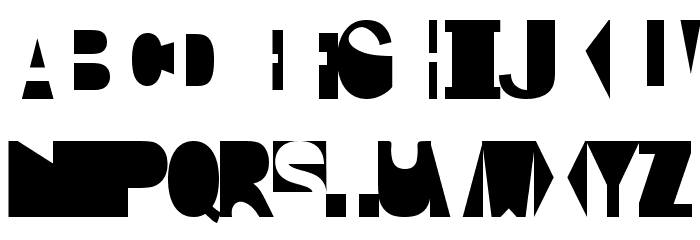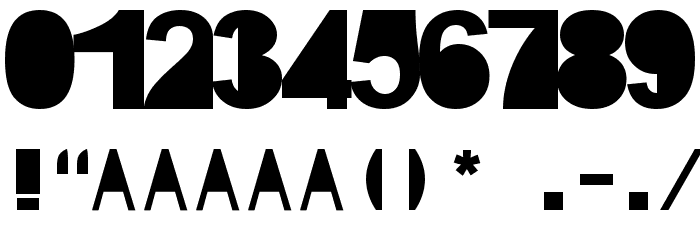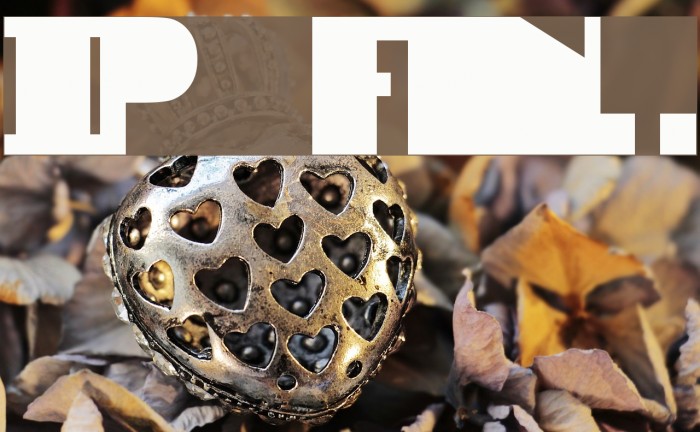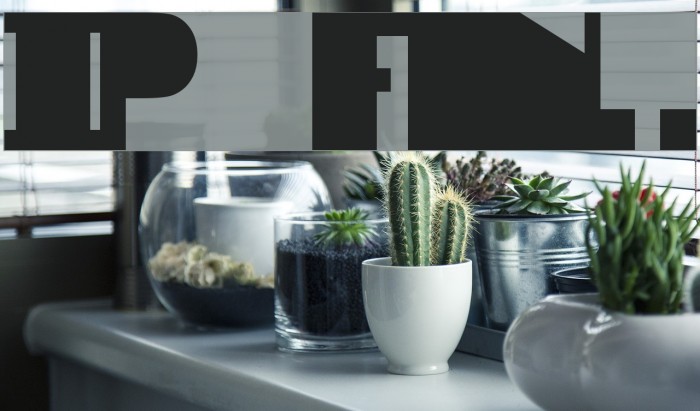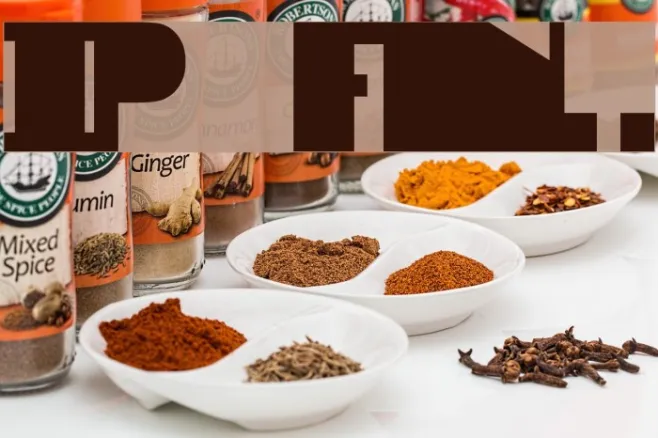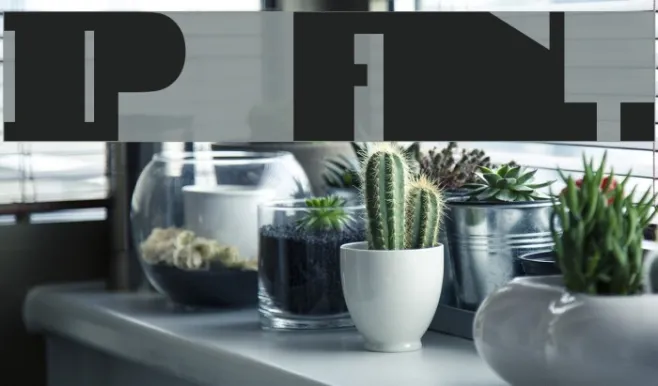
IP Font
This font features a bold, geometric design with high contrast between thick and thin strokes. The characters are constructed with sharp angles and distinct shapes, creating a striking and modern appearance. The uppercase letters are particularly bold, with some characters having unique cutouts or negative spaces that add to the overall visual interest. The lowercase letters maintain the same boldness and geometric style, ensuring consistency across the typeface. Numbers and special characters follow the same design principles, making this font highly cohesive. Its boldness and unique style make it ideal for attention-grabbing designs.
A bold, geometric font with high contrast and unique cutouts.
- Proposed Projects: Ideal for posters, logos, headlines, and branding materials that require a modern and bold statement.